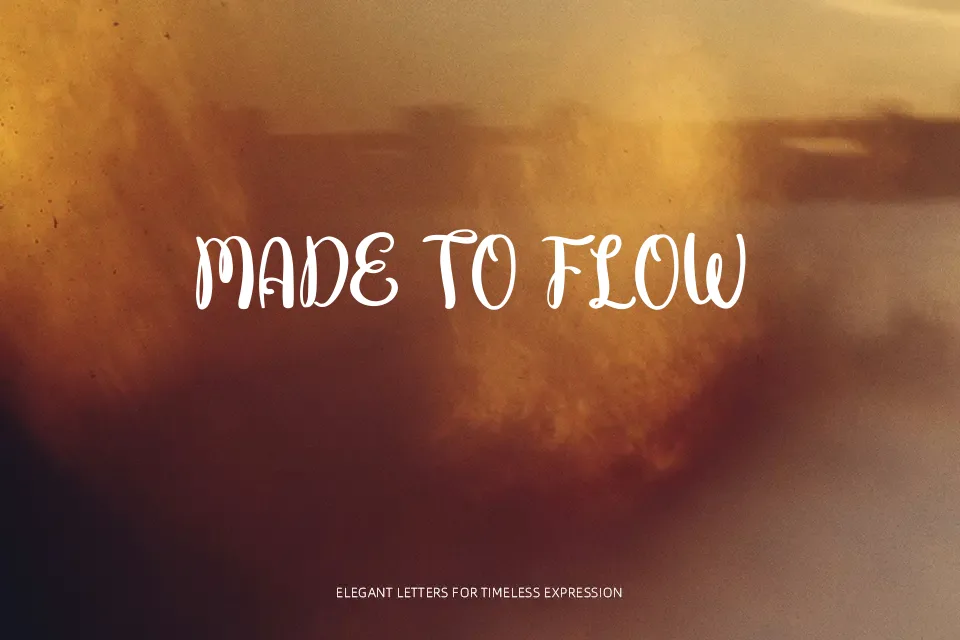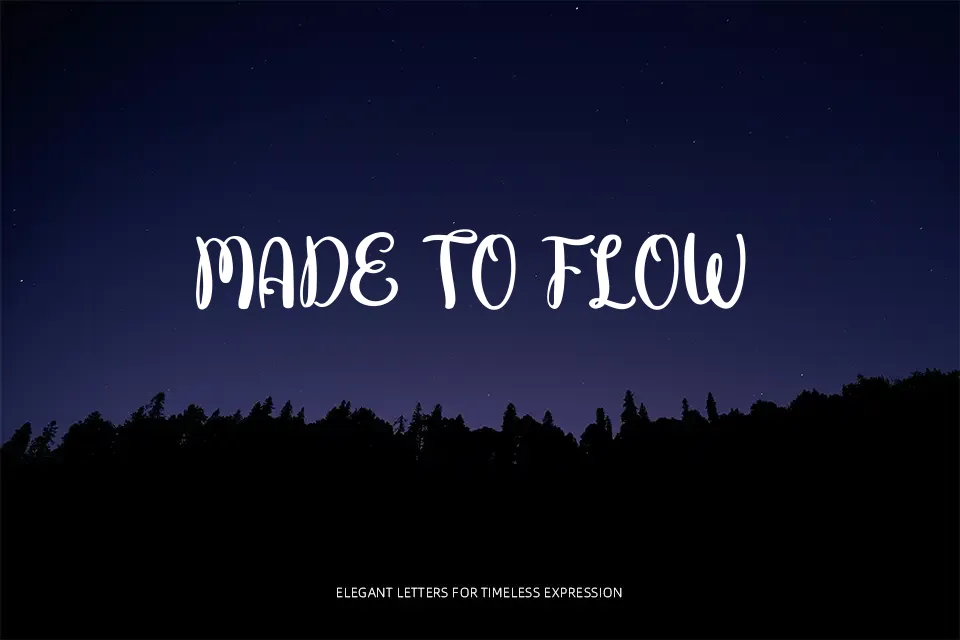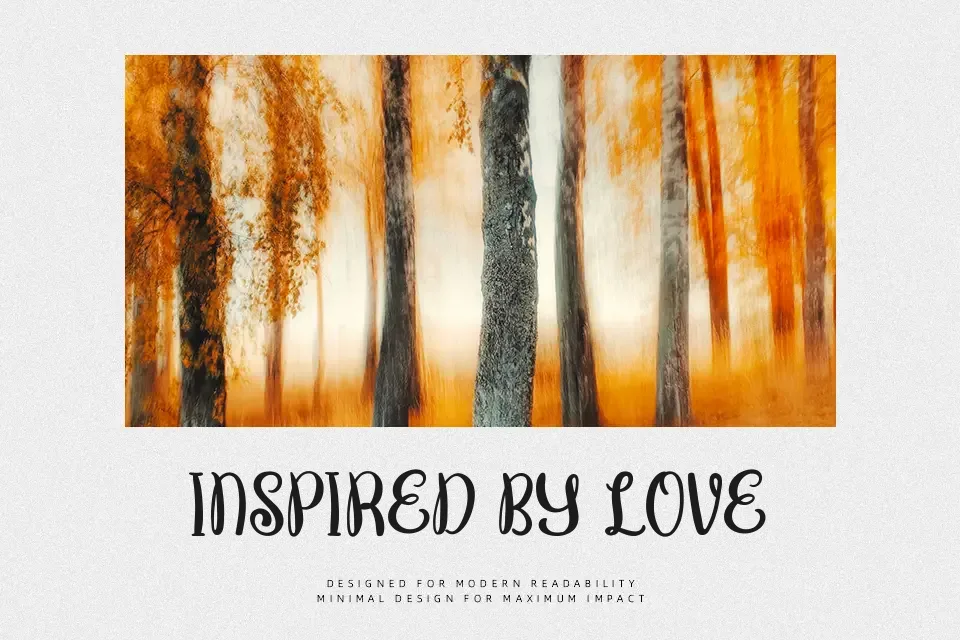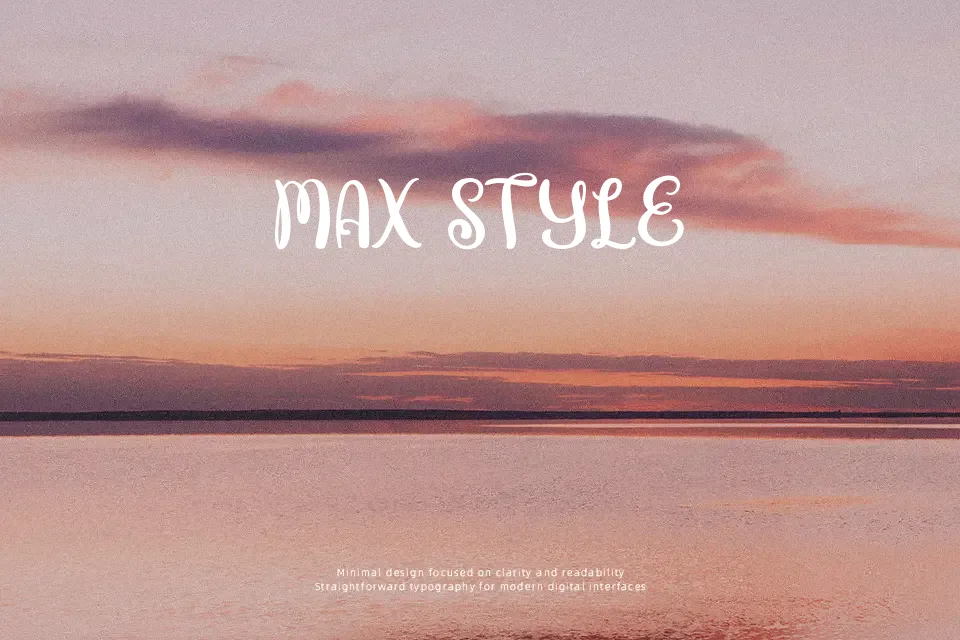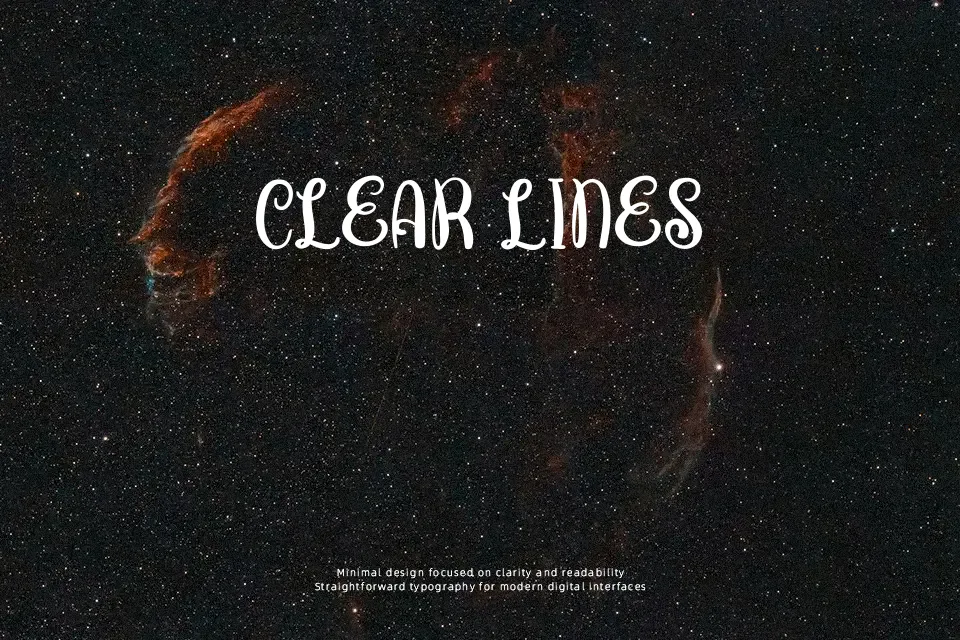
Butterfly Font
Butterfly Font is a cursive script with long, looping strokes, medium contrast, and roomy spacing that keeps the letterforms readable even when you add flourishes. The shapes lean decorative rather than formal calligraphy, so it feels friendly and slightly romantic, with plenty of movement in the baseline. It tends to shine on names, short phrases, and logos for beauty, craft, or wedding-related projects, especially when paired with a clean sans serif for small supporting text. For dense paragraphs, UI copy, or data-heavy layouts, the swashes and script rhythm can quickly become tiring, so it is better kept for accent typography than for body text.
wedding invitations and place cards
beauty or boutique brand logos
social media posts with short quotes
product packaging for cosmetics or gifts
long paragraphs or editorial body copy
small-size interface labels or app menus
technical documents or corporate reports
Perfect for branding, invitation, and logo, with a creative and decorative style.